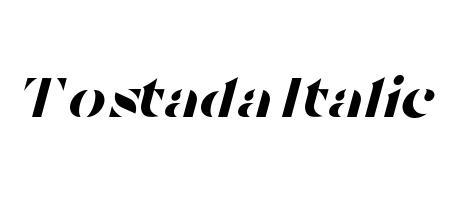
Tostada
By Iván Núñez
Tostada Italic is a bold, playful serif typeface. Its italic style leans dramatically, with letterforms that are slightly condensed and possess a strong, almost chunky weight. The serifs are subtly rounded, softening the overall boldness and creating a slightly vintage feel. The unique letterforms suggest a handmade quality, adding a touch of personality.